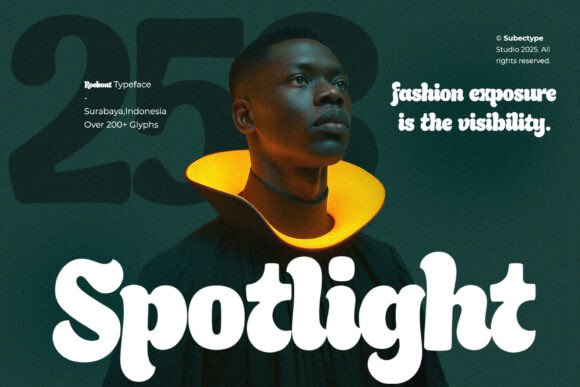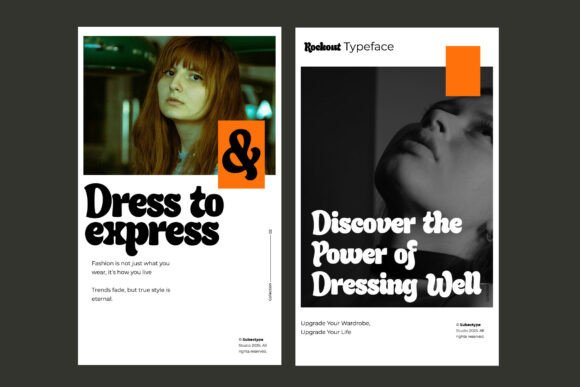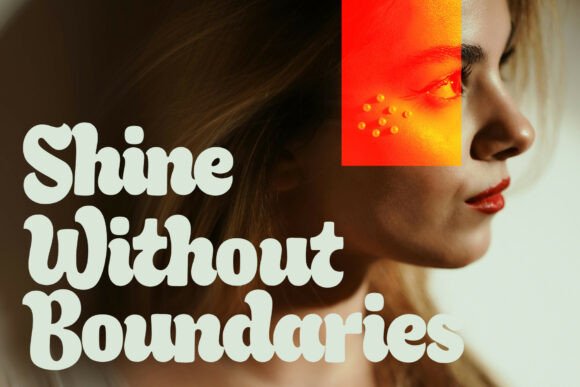
Introduction to Rockout Font
Have you ever stared at a blank canvas, unsure of where to start your next creative project? The blank page can be daunting, but sometimes all it takes is the right design resource to spark inspiration. For designers, finding the perfect font can be the key to unlocking a successful project. That’s where Rockout Font comes in – a high-quality, free download that’s about to become your new go-to.
Rockout Font combines bold, eye-catching strokes with a playful retro vibe, making it perfect for designs that demand attention. Its groovy curves and modern twist bring a sense of nostalgia while keeping your visuals fresh and trendy. Whether you’re working on a poster, logo, or social media graphic, this typeface effortlessly bridges the gap between vintage charm and contemporary style.
With a transparent background and a wide range of applications, Rockout Font is the ultimate design companion for any creative project. Say goodbye to bland designs and hello to a world of visual excitement with this must-have font.
Key Features of Rockout Font
- High-quality design resource ideal for creative projects, including posters, flyers, and social media graphics.
- Features a unique, bold font style with a transparent background, allowing for seamless integration with any design.
- Designed to make a statement, Rockout Font is perfect for headings, titles, and any element that needs a bold, eye-catching touch.
Honest Review: Rockout Font
I recently had the chance to work with the Rockout Font, and I must say it’s been a game-changer for my creative projects. This font is perfect for designers looking for a high-quality, bold, and eye-catching design resource.
Here are some of the things that I think work well with the Rockout Font:
- ✨ The font is highly customizable, allowing me to easily adjust the size, color, and style to suit my design needs.
- ✨ The font’s transparent background makes it easy to use with a variety of design elements and backgrounds.
- ⚠️ The font may not be suitable for all types of design projects, particularly those that require a more subtle or minimalist approach.
- ⚠️ Some users may find the font’s bold style overwhelming or difficult to read.
Overall, I’m really impressed with the Rockout Font and would highly recommend it to designers working on high-energy creative projects. Its unique style and high-quality design make it a valuable addition to any design resource library.
Tips for Getting the Most Out of Rockout Font
For the best results, use Rockout Font on a high-quality design project with a transparent background. This will allow you to easily combine the font with other design elements and create a unique look. You can also use the font in combination with other design resources to create a cohesive and professional design.
Rockout Font is a versatile design resource that can be used in a variety of creative projects, including logos, posters, flyers, and social media graphics. It’s also a great choice for presentations, reports, and other documents that require a unique and eye-catching font.